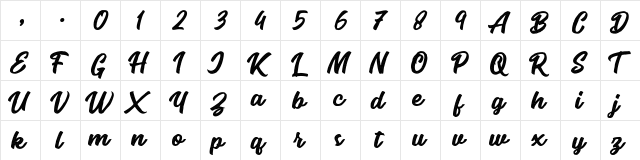
Seact Rough Regular
Design Context for Seact Rough Typeface
Seact Rough embraces imperfection — its rough, textured character adds raw authenticity to designs that want to feel lived-in and unconventional.
A strong fit for alternative music projects, graffiti-adjacent design, and anything that deliberately resists polish.
Pro Tip: Use Seact Rough at larger sizes where the texture and irregularity of each letterform can be clearly seen — it loses its character at small sizes.